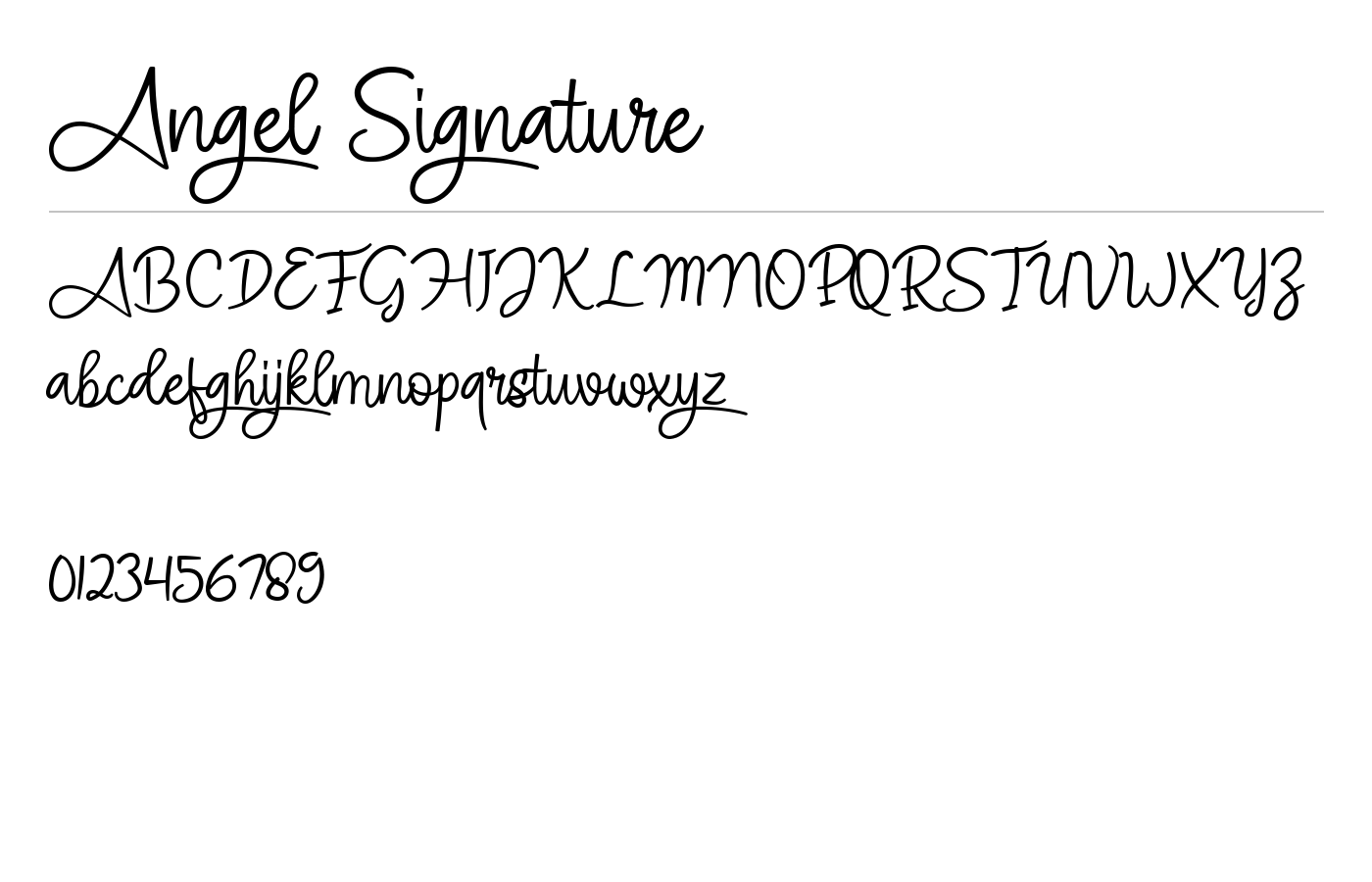
Angel Signature Font is a delicate and elegant script font with a handwritten, casual yet refined feel. Its smooth, flowing lines with playful loops and moderate contrast make it perfect for branding, invitations, and creative projects that seek a personal and stylish touch. This font works beautifully in logos, greeting cards, and packaging where a friendly but sophisticated handwritten look is desired.
Angel Signature Font
About Angel Signature Font
| Font family | Angel Signature Font |
| Designer | aminmario studio |